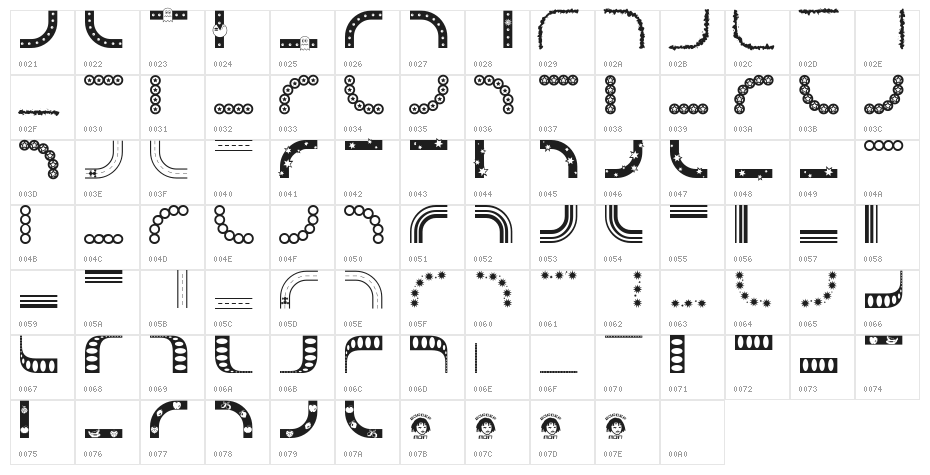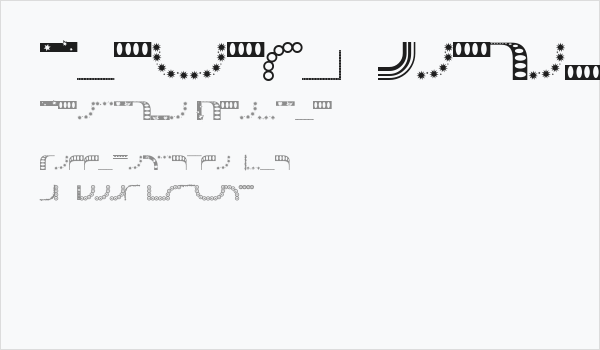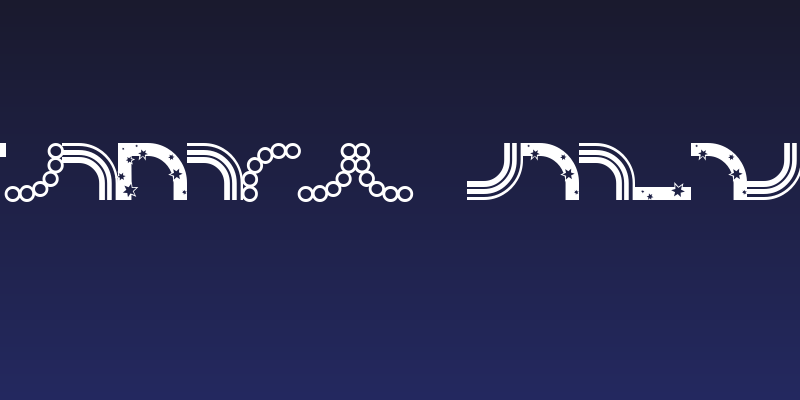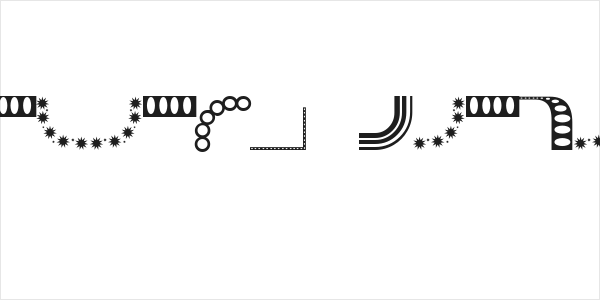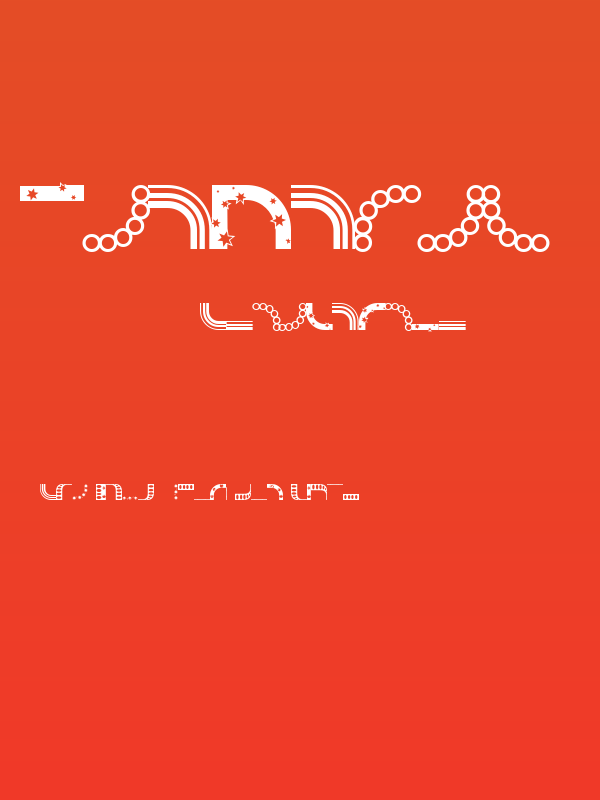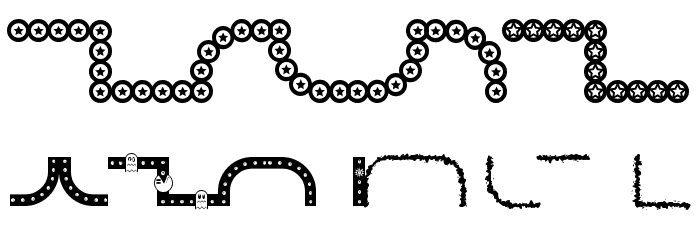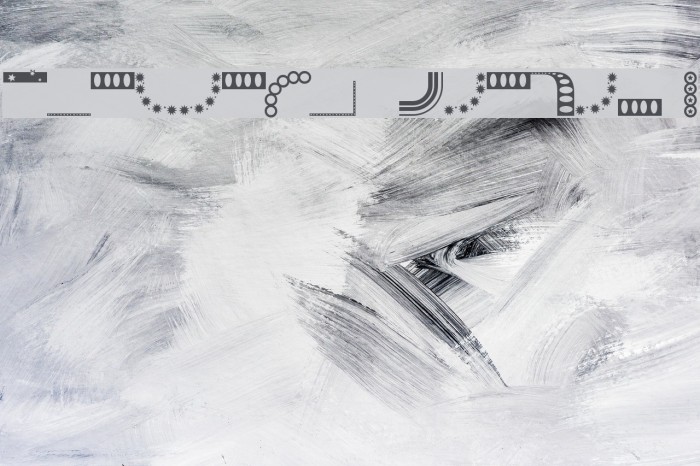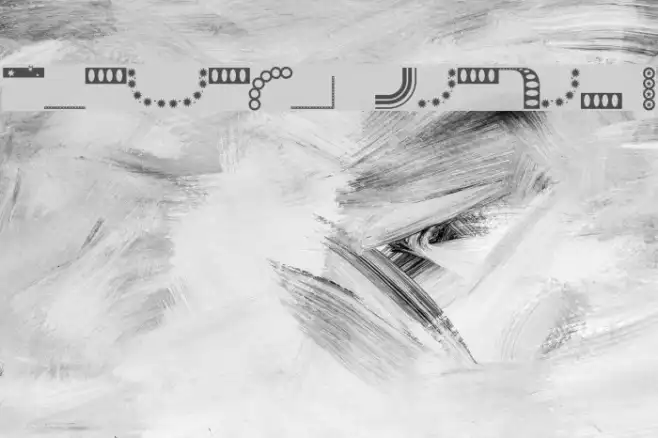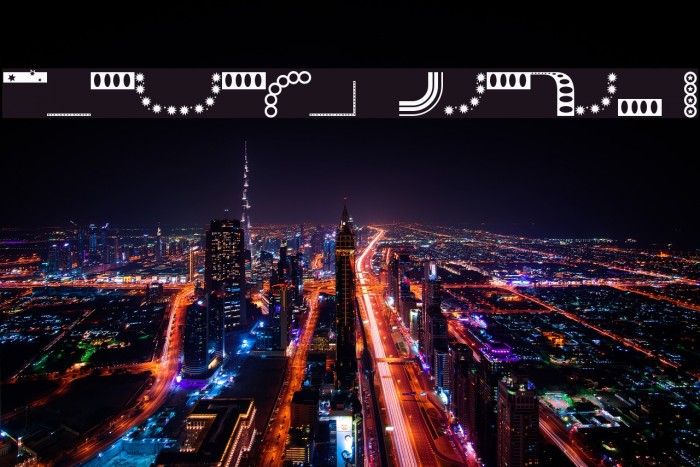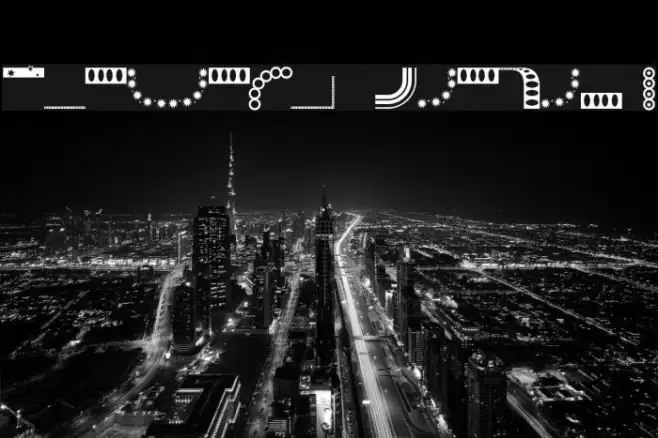
BorderMon Series 1 Font
BorderMon Series 1 Description
This font is a highly decorative and playful typeface, characterized by its unique use of patterns and shapes within the letterforms. Each character is filled with distinct motifs such as stars, circles, stripes, and various themed icons, creating a whimsical and eye-catching appearance. The font's design is unconventional, with a focus on creativity and visual interest rather than readability. It is ideal for projects that require a bold and artistic statement, where the text serves as a visual element rather than purely informational. The font's intricate details and varied patterns make it suitable for use in creative and artistic contexts.
| Use Case | Logos, Posters, Artistic projects |
| Proposed Projects | Ideal for artistic projects, posters, children's books, and creative branding. |